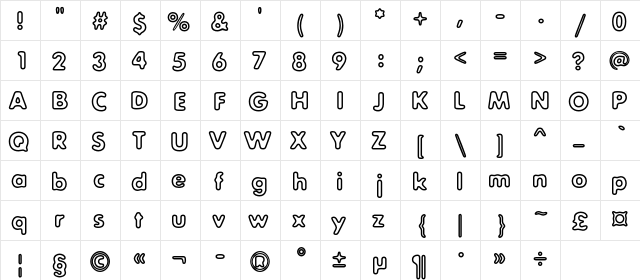
ExposureCOutline Regular
Design Context for ExposureCOutline Typeface
ExposureCOutline brings ornamental detail and strong personality to headlines and identities, where visual impact matters more than quiet functionality.
Font Pairing: Pair with a clean neutral sans-serif for body copy to let ExposureCOutline's character lead without overwhelming the composition.
Pro Tip: Treat ExposureCOutline as the centrepiece of your typographic hierarchy. One strong heading set in a decorative face can carry an entire layout.